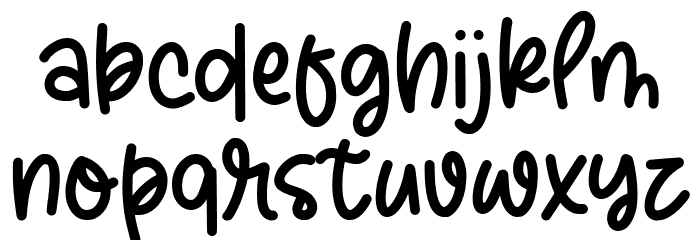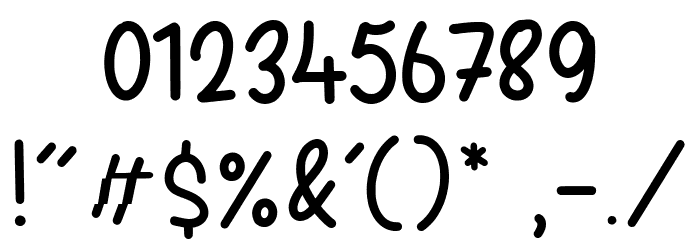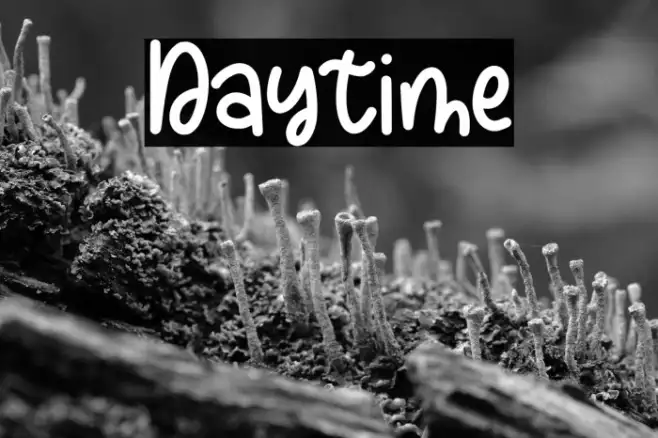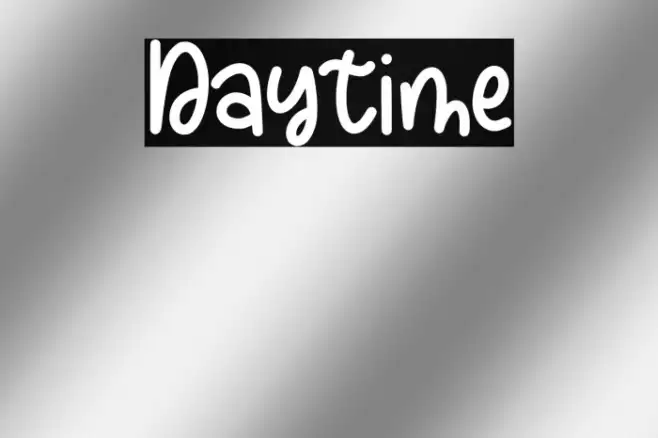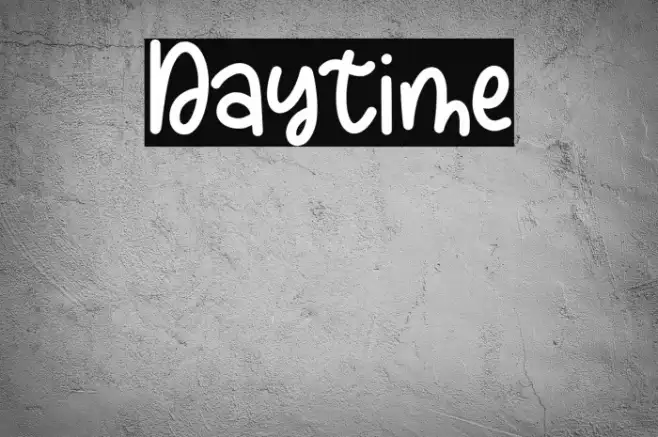
Daytime Font
This playful and whimsical font features a handwritten style with rounded, smooth edges and a consistent flow. The characters are bold and slightly condensed, giving a friendly and approachable appearance. The uppercase and lowercase letters maintain a uniform height, enhancing readability while adding a casual charm. Numbers and special characters follow the same playful design, making the font versatile for various uses. The strokes are consistent in width, providing a balanced look without high contrast. This font is ideal for projects that require a personal touch or a fun, informal vibe.
A playful, handwritten font with rounded edges and a friendly appearance.
- Proposed Projects: Ideal for greeting cards, children's books, playful branding, and social media graphics.
- Overall Style: Casual
- Use Case: Headlines, Logos, Informal text